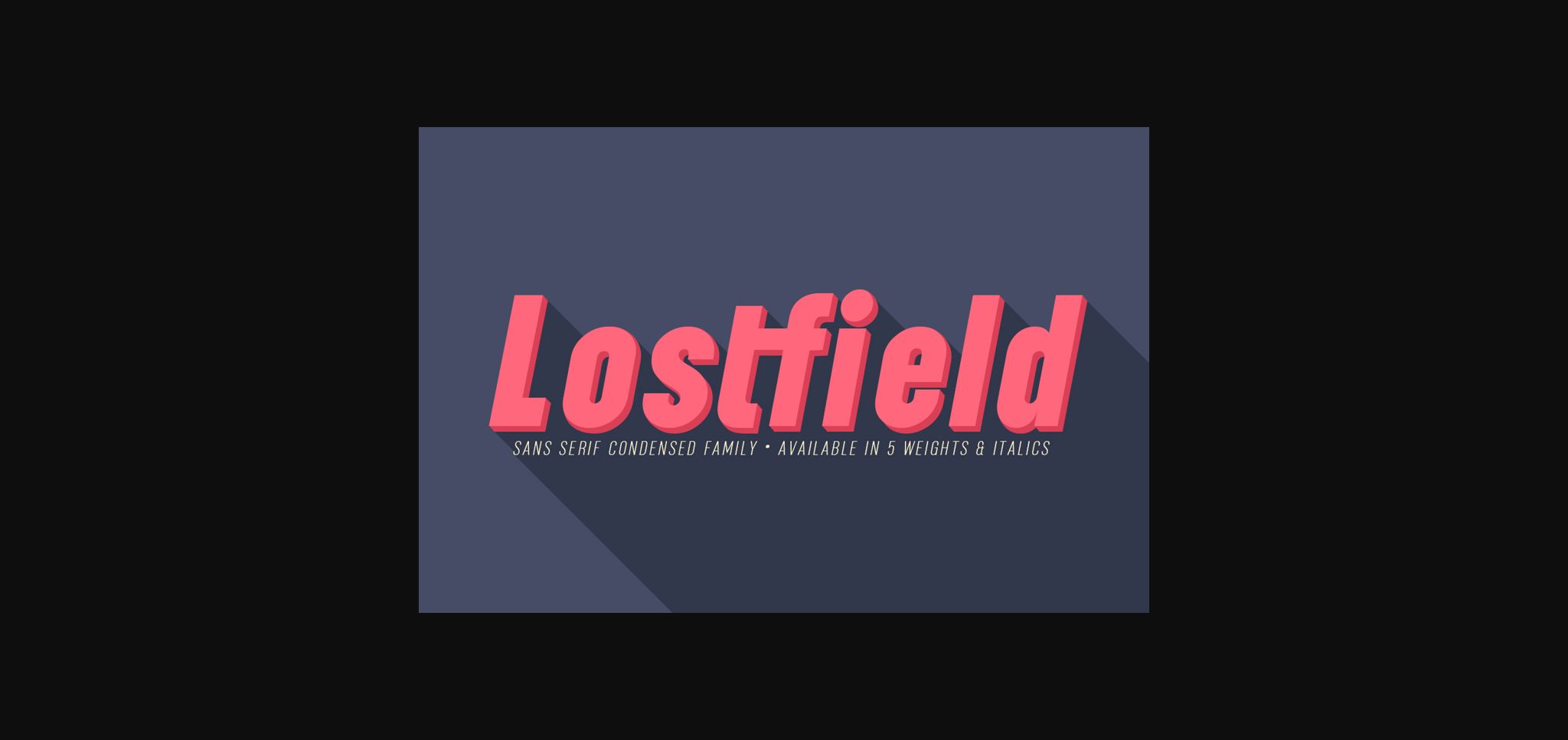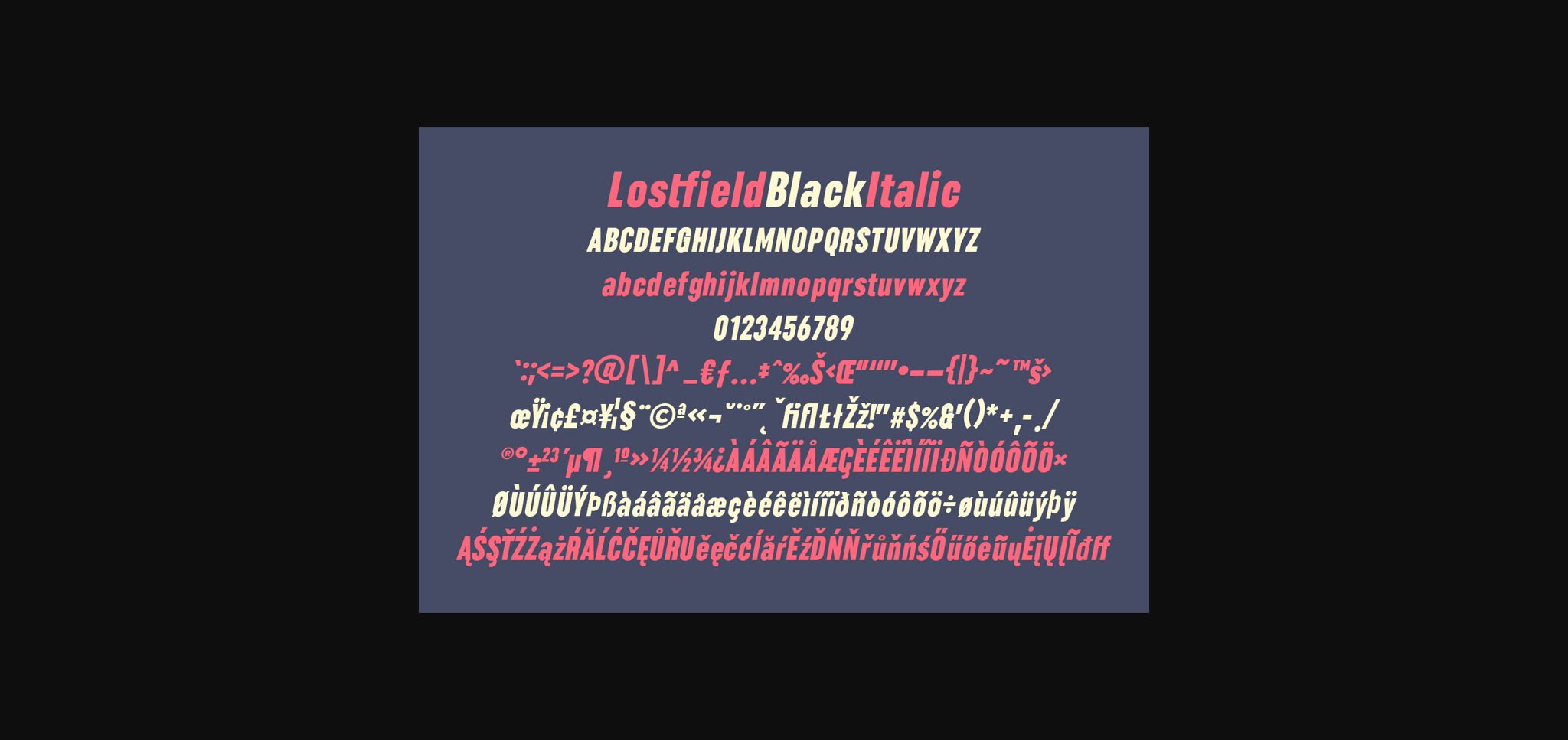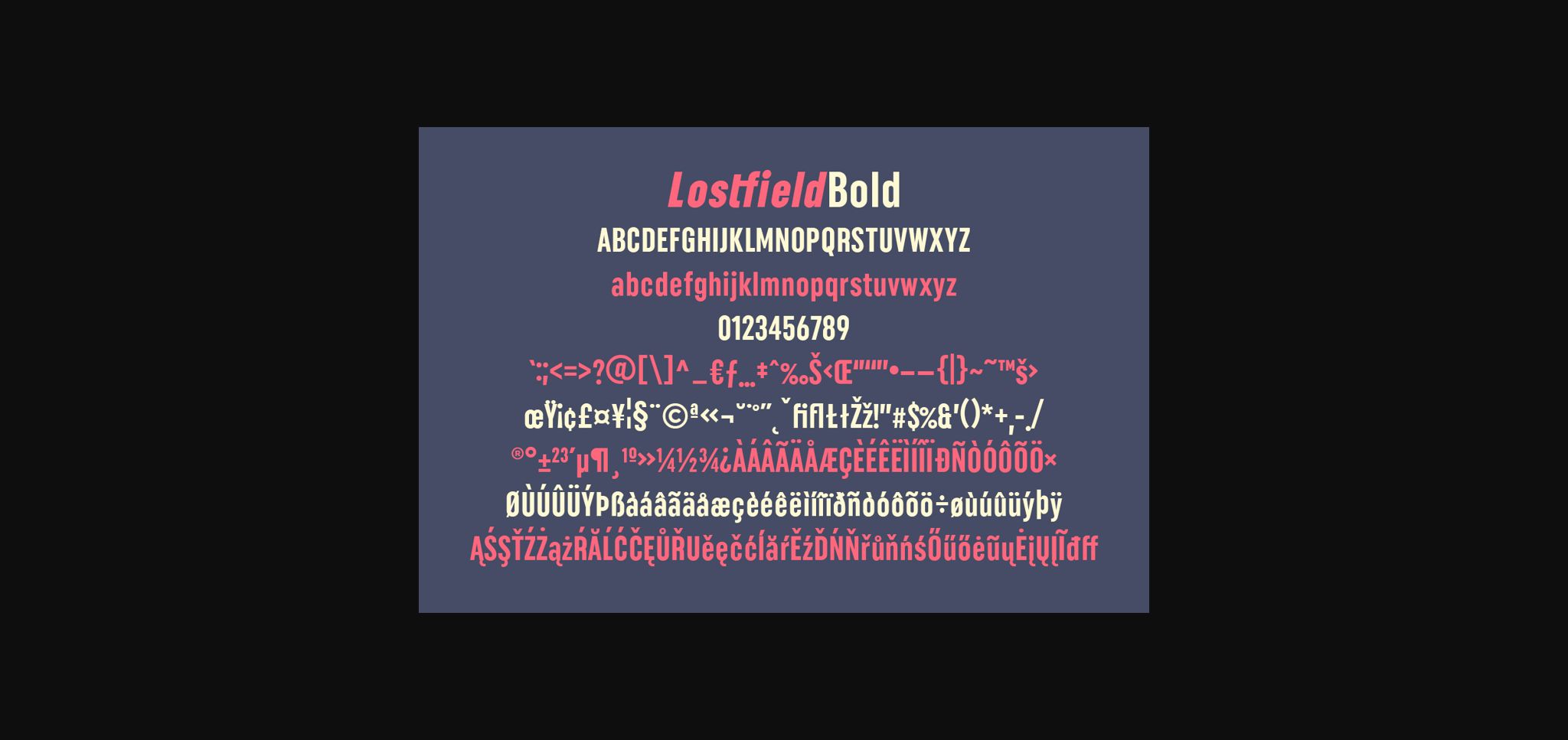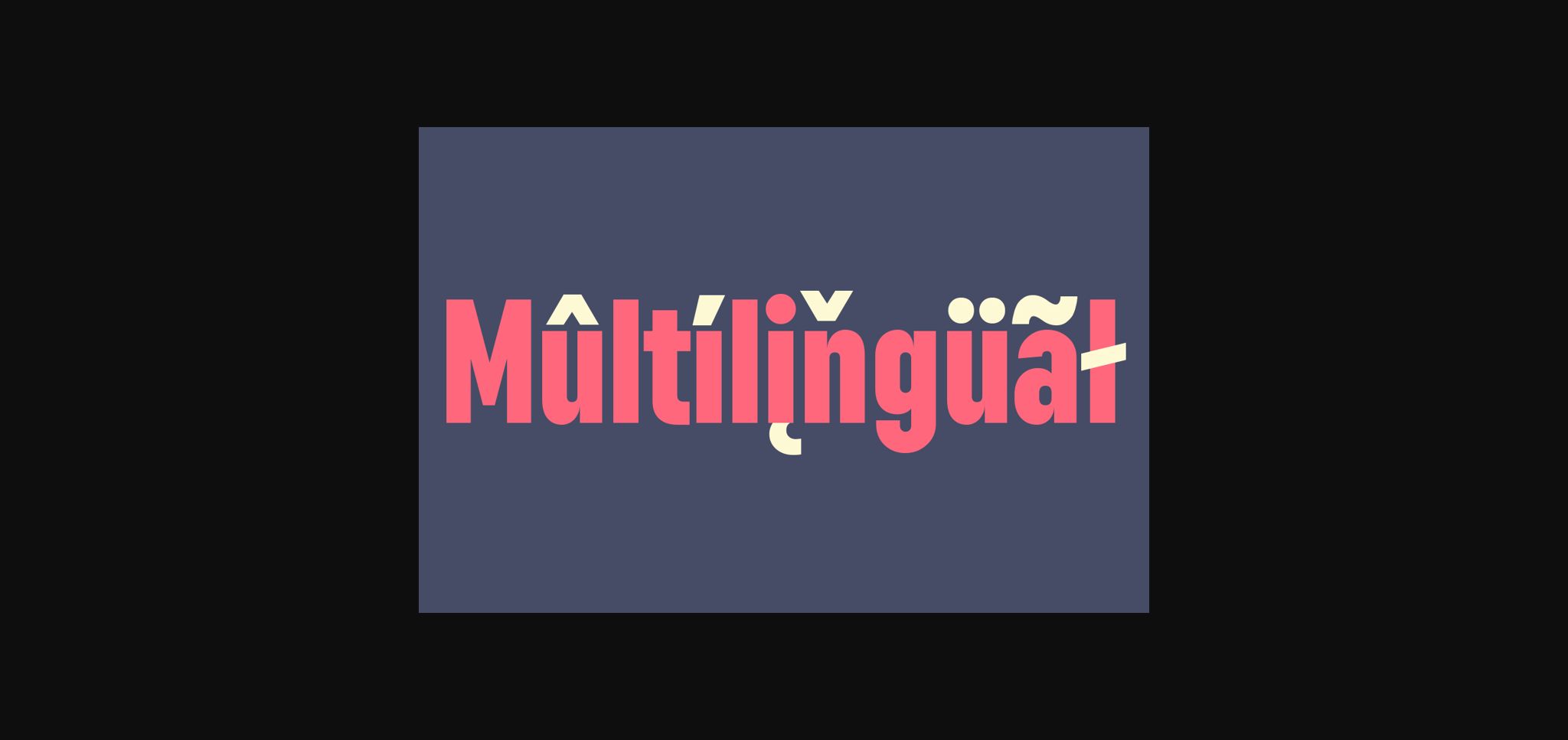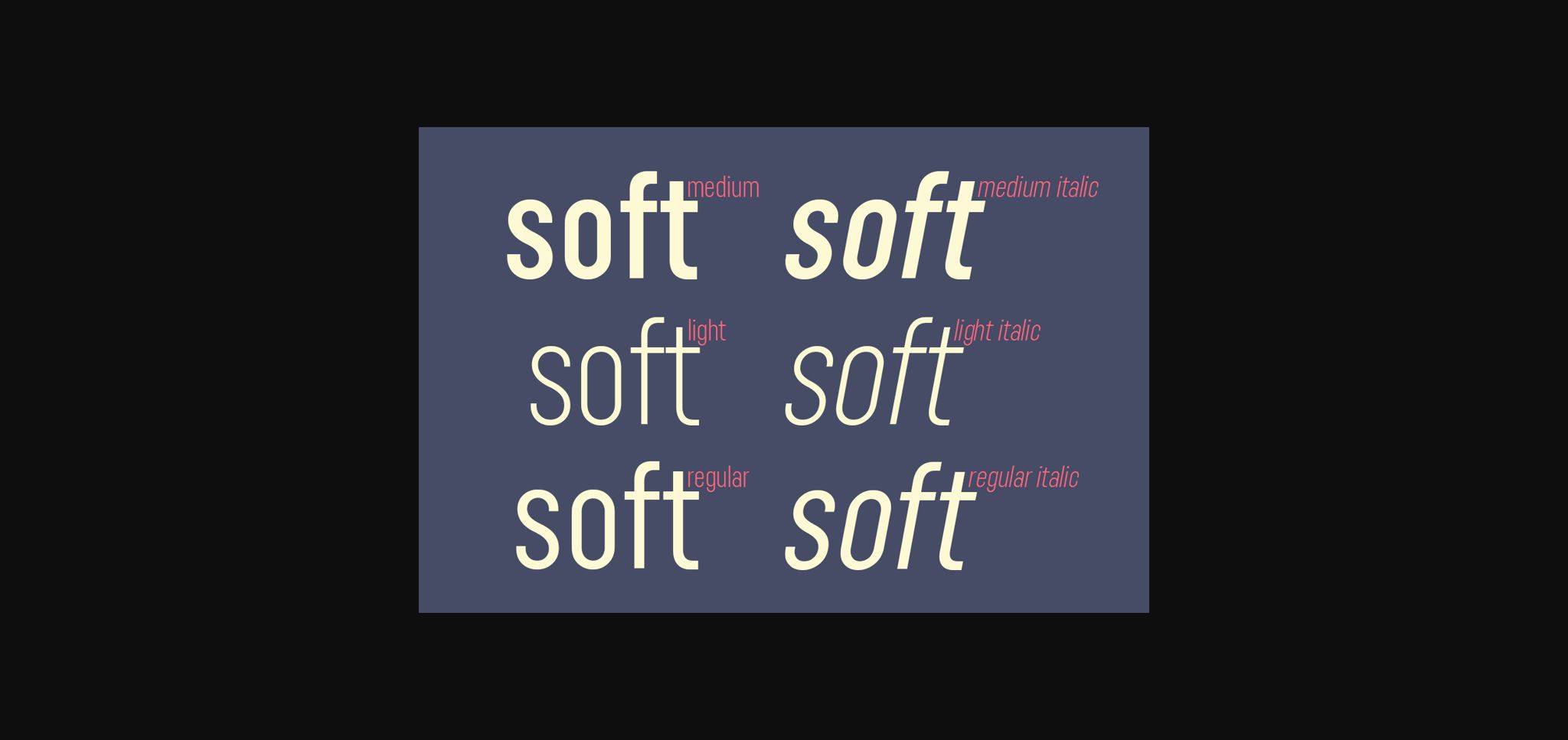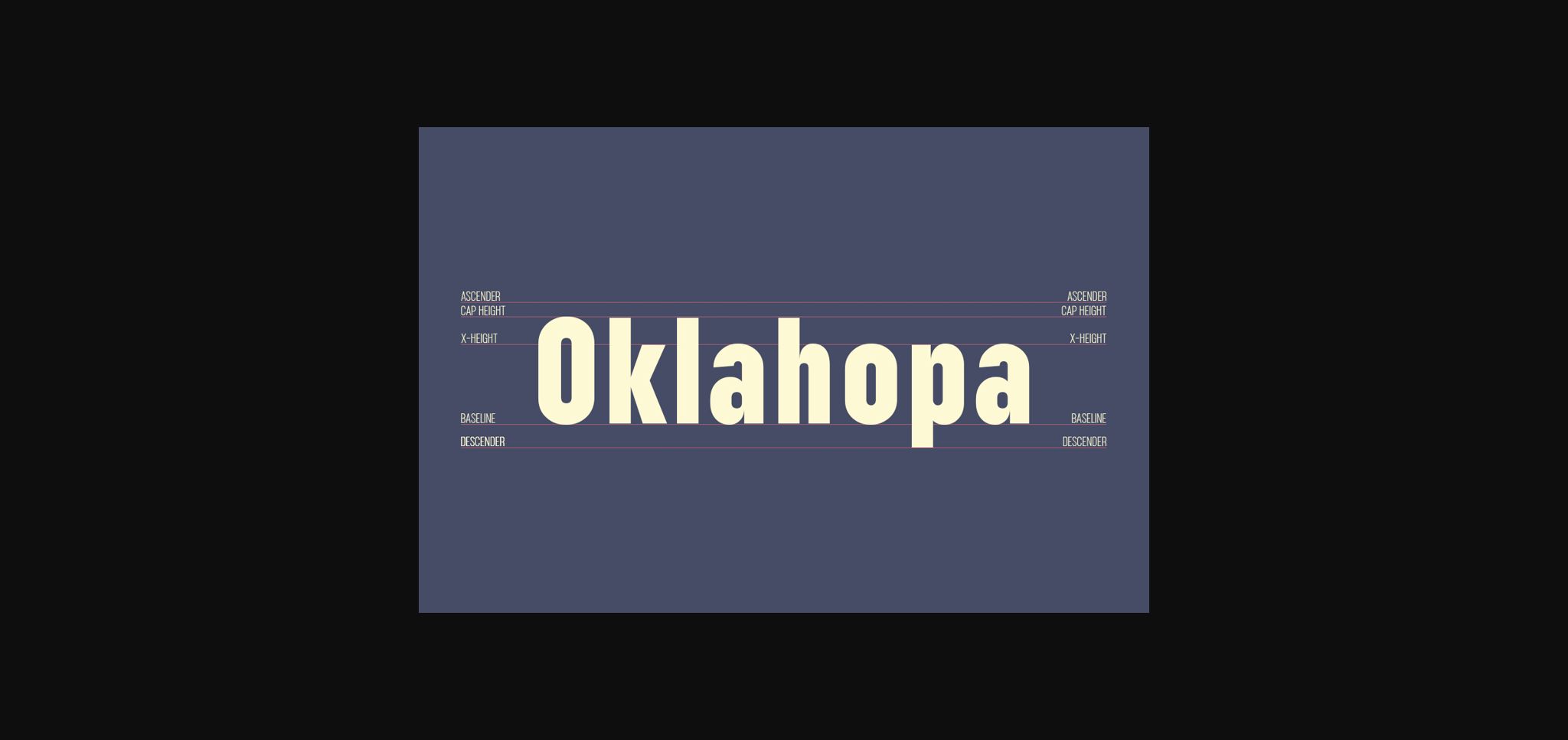
About Lostfield Font
Lostfield is a bold and thick lettered sans serif font. Incredibly versatile, this font fits a wide pool of designs, elevating them to the highest levels. Add this font to your favorite creative ideas and notice how it makes them come alive!